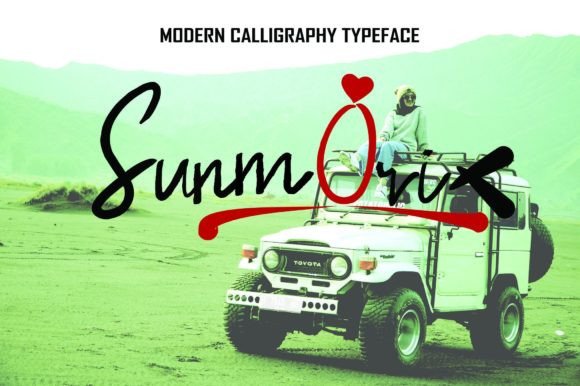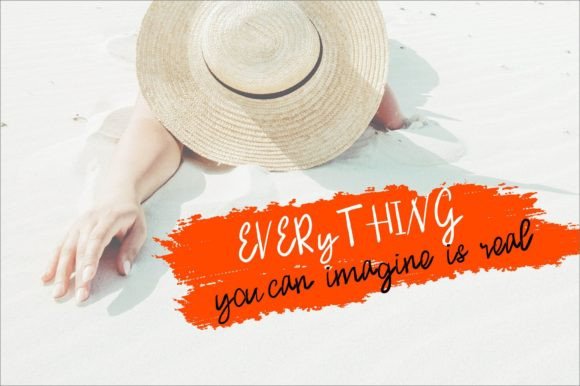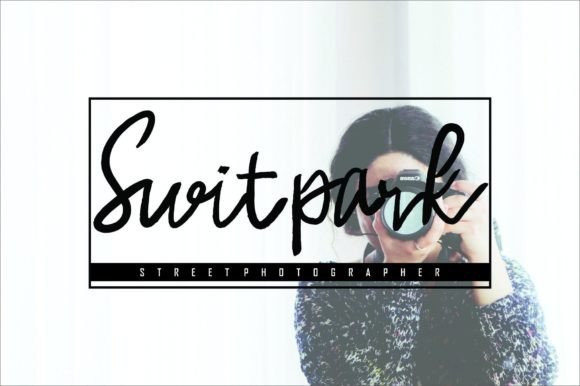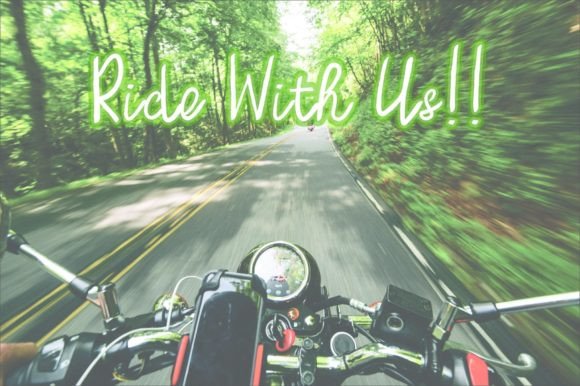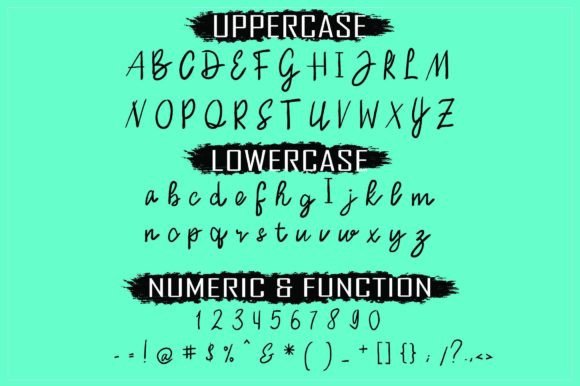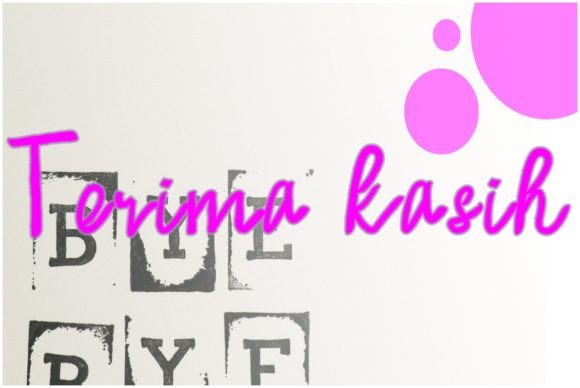
Sunmori Font
About Sunmori Font
“Sunmori” is a script font inspired by the Indonesian tradition of Sunday Morning Riding. Designed with classic simplicity, this typeface offers a handwritten touch that is versatile and well-suited for a broad range of projects. Whether you’re working on design elements related to the Indonesian tradition that inspired it or other creative endeavors, “Sunmori” brings a touch of elegance and simplicity to your projects.
The font’s connection to the Sunday Morning Riding tradition adds a cultural and contextual element to its design. It becomes not just a typeface but a representation of a unique and inspiring cultural practice. This connection can enhance the authenticity and meaning of projects related to the tradition or any other context where a handwritten touch is desired.
The classic and simple design of “Sunmori” makes it adaptable to various projects. Its versatility allows it to complement different styles and themes, making it a valuable asset for designers seeking a font that can work well in a variety of contexts.
In summary, “Sunmori” is a script font that not only brings a handwritten touch to your projects but also carries a cultural inspiration from the Indonesian tradition of Sunday Morning Riding. Its classic and simple design makes it suitable for a wide array of applications, adding a touch of elegance to your creative endeavors.